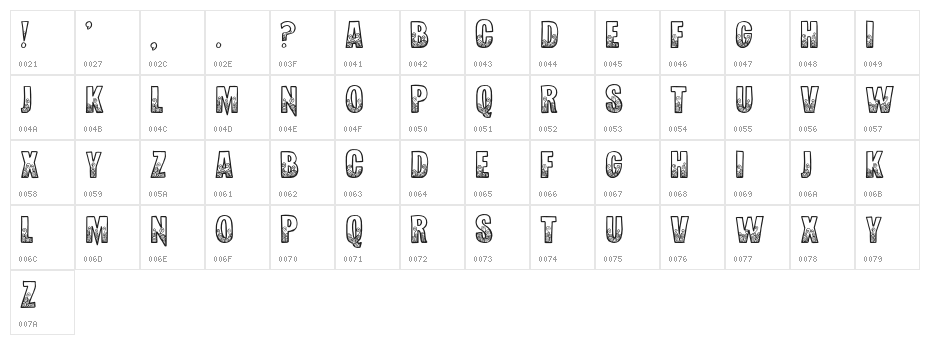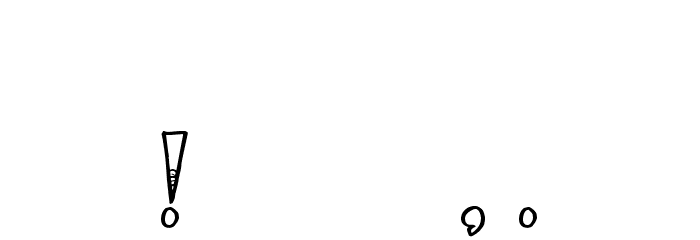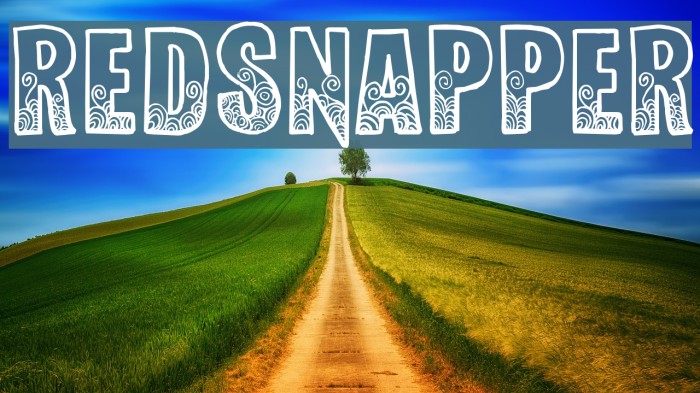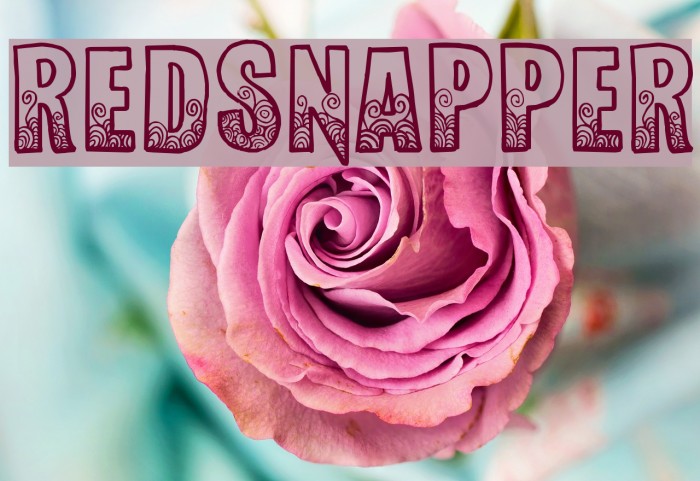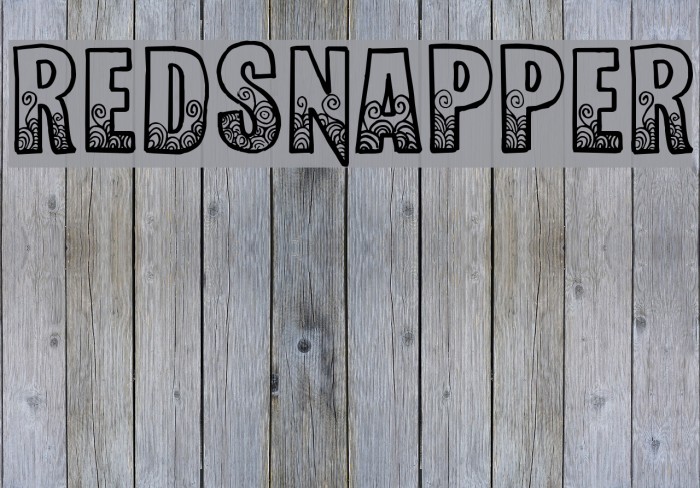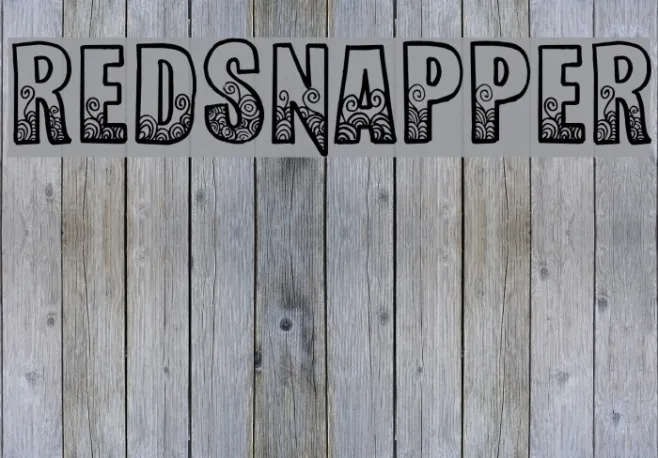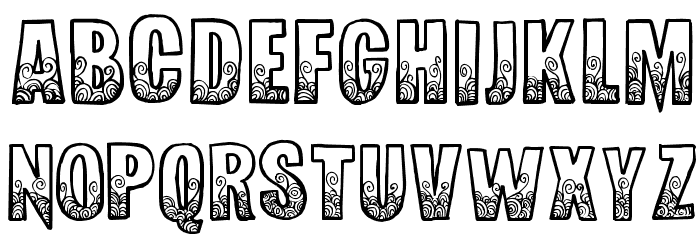
Red-Snapper Font
Red-Snapper Description
This decorative font features bold, uppercase letters with intricate, swirling patterns inside each character. The design is reminiscent of ornate, vintage styles, adding a touch of elegance and flair. The characters are outlined with a thick, consistent stroke, enhancing their visibility and impact. The font's unique embellishments make it ideal for creative and artistic projects, where a distinctive and eye-catching typeface is desired. The spacing between characters is normal, allowing for readability while maintaining its decorative appeal. The font's playful yet sophisticated style makes it versatile for various design needs.